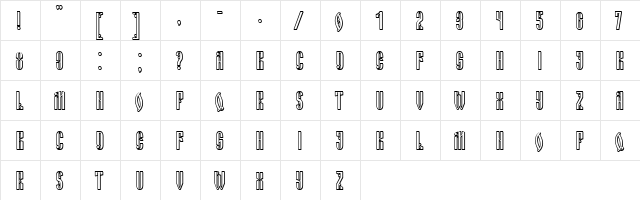
Russian Land Shadow Regular
Design Context for Russian Land Shadow Typeface
Russian Land Shadow is built around its visual character rather than neutral utility — its distinctive forms are designed to make an impression at display sizes.
Font Pairing: Pair with a clean neutral sans-serif for body copy to let Russian Land Shadow's character lead without overwhelming the composition.
Pro Tip: Use Russian Land Shadow exclusively at display sizes — it was designed to be seen, not read at length. Let a neutral companion handle body copy.